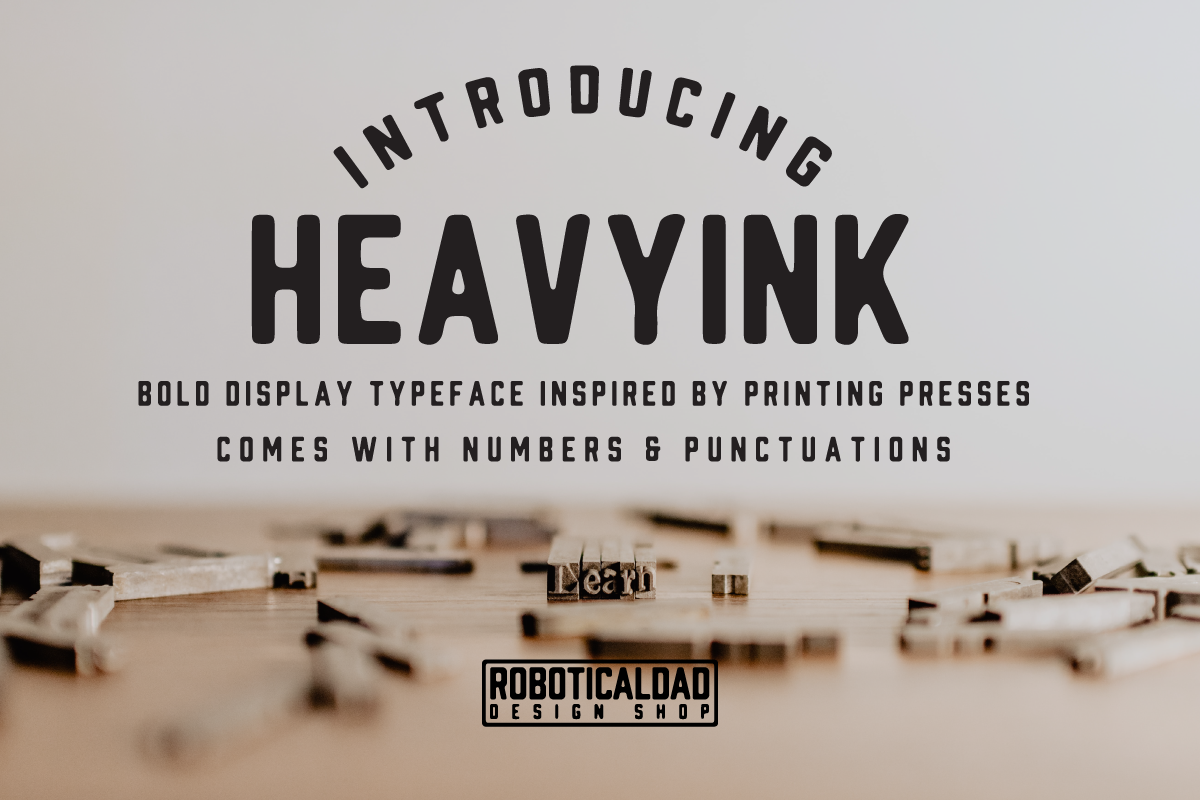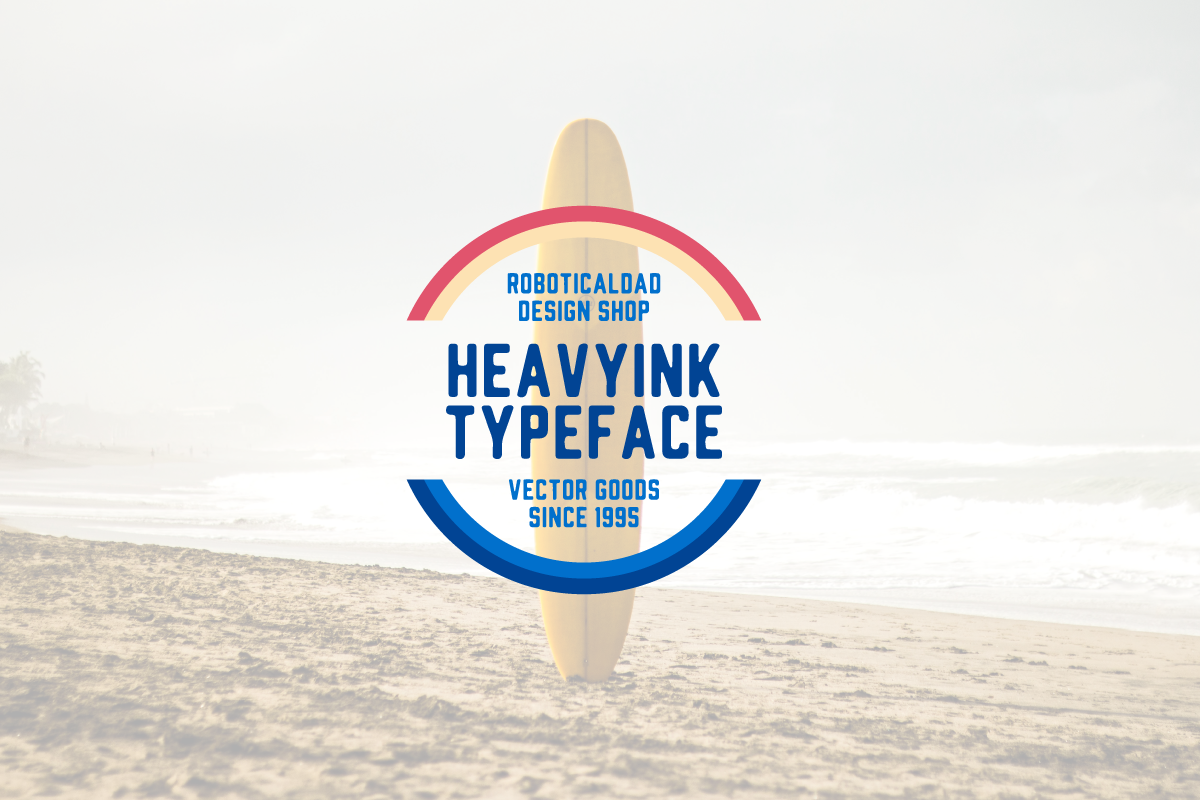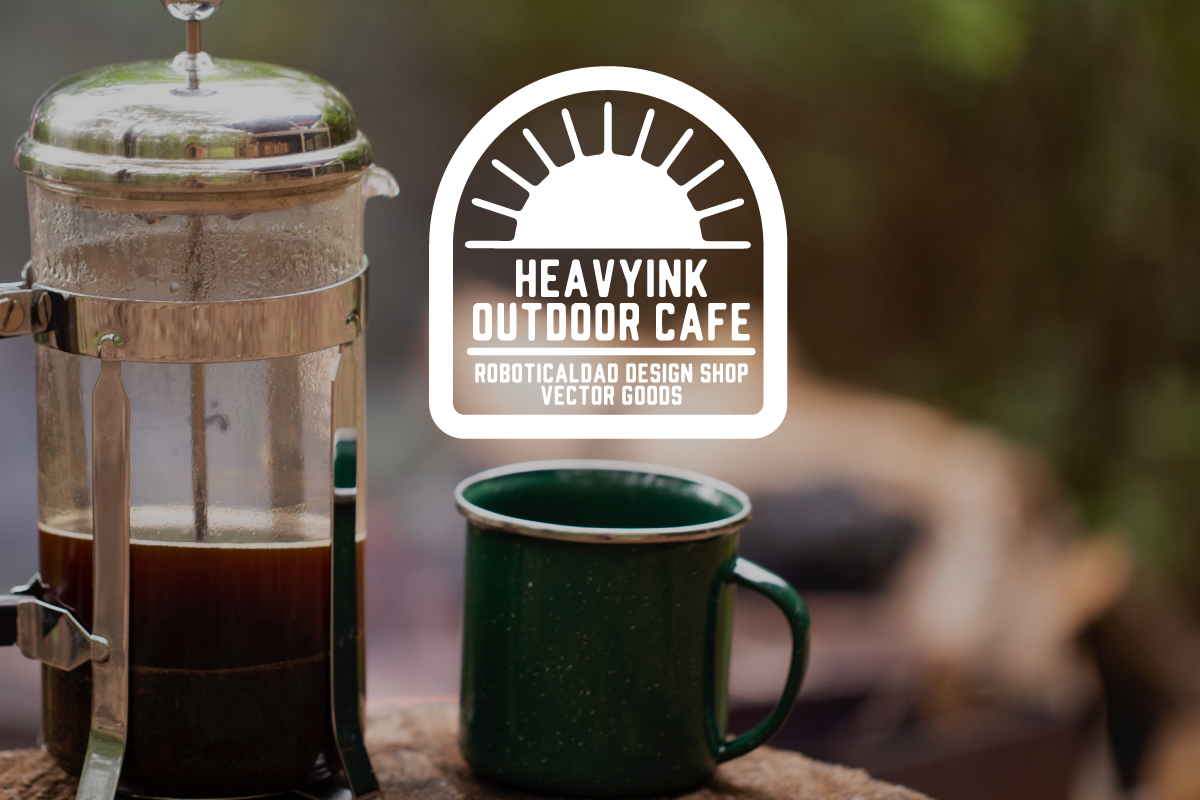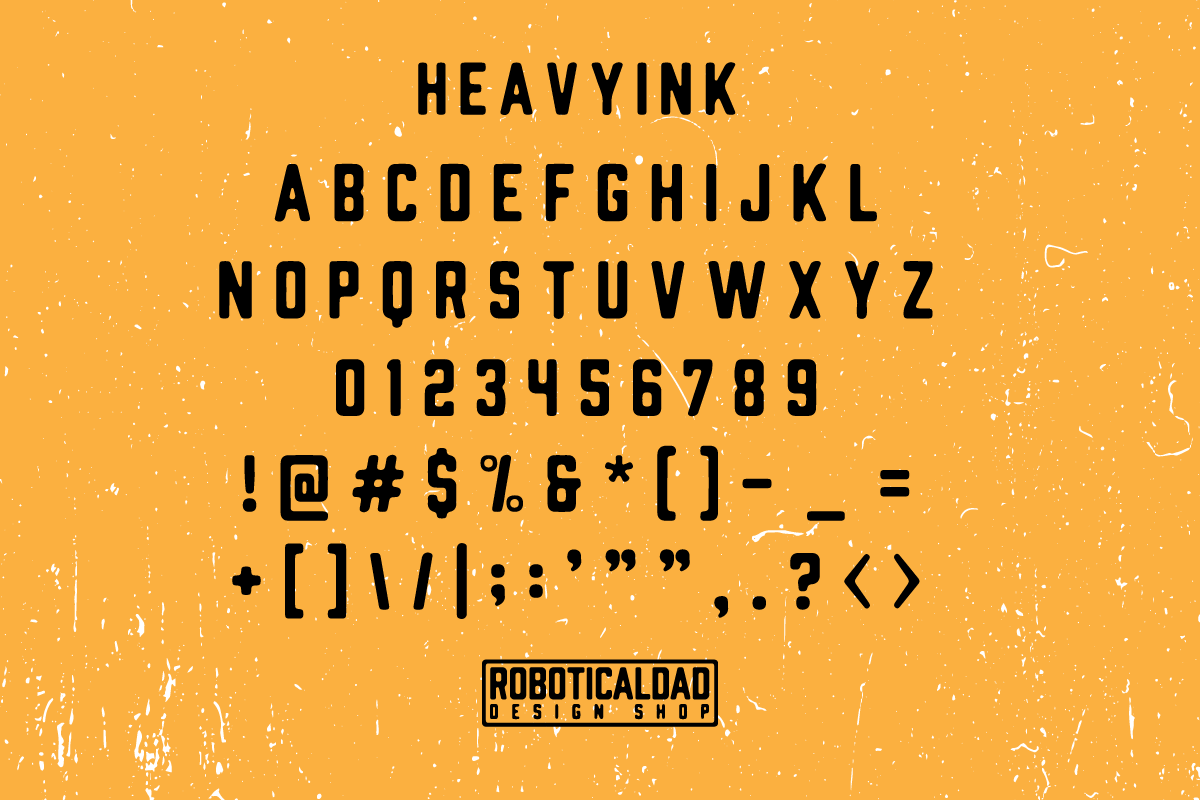
HeavyInk Bold Display Typeface
Inspired by old school printing presses, this HeavyInk display typeface reminisces on those days when slugs were put together by hand, ink rolled on and pressed onto newsprint or onion skin paper.
Awesome uses include posters, t-shirts, and music album covers.
This bold display typeface comes in all caps and includes numbers and punctuations.